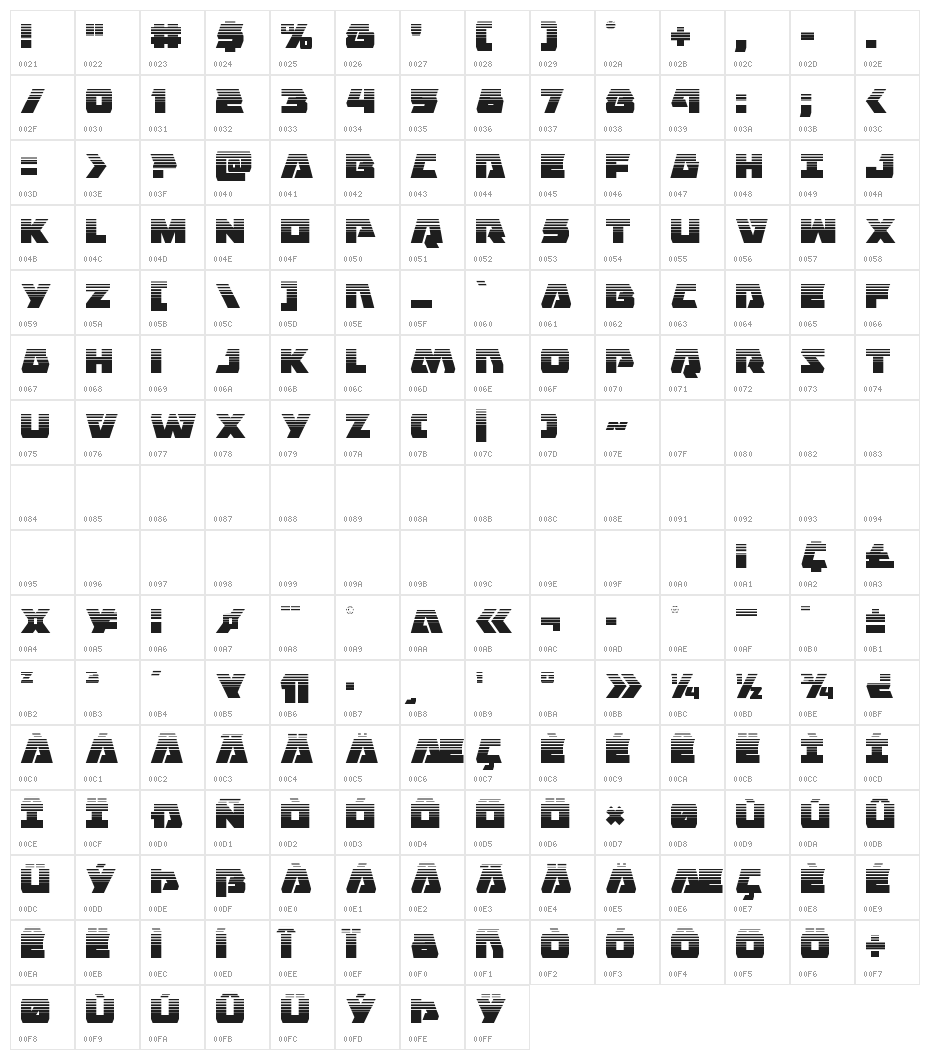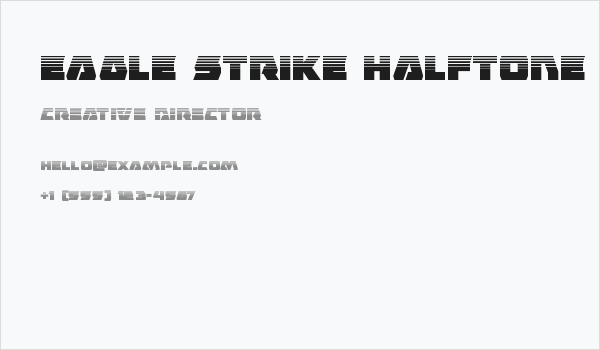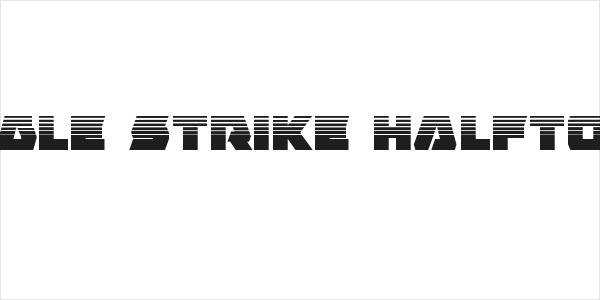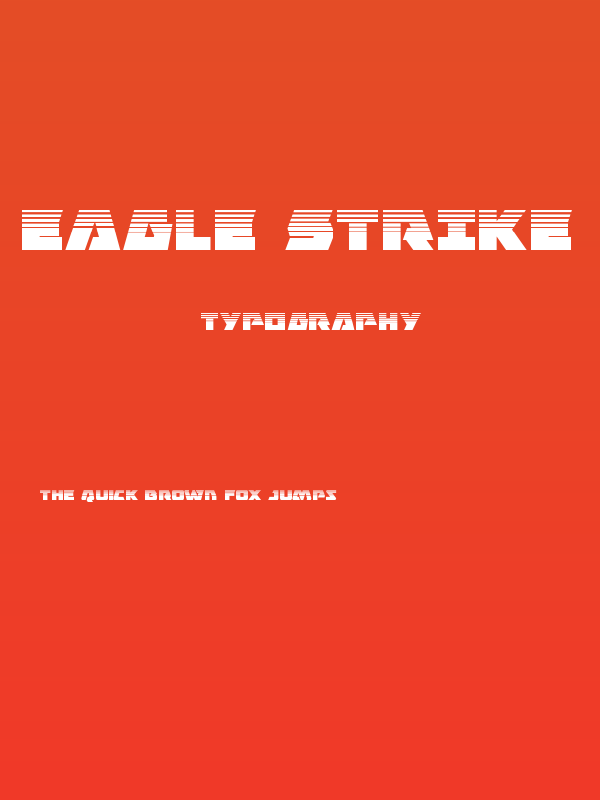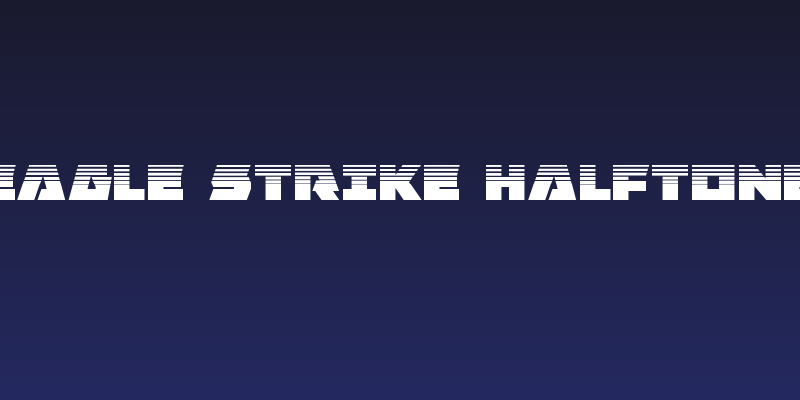
Eagle Strike Halftone Font
Eagle Strike Halftone Description
This font features a bold, geometric design with a striking halftone effect. The characters are constructed with thick, angular lines that create a sense of movement and energy. The halftone pattern adds a unique texture, giving the font a dynamic and modern appearance. Each letter is distinct, with sharp edges and a consistent width, making it highly legible despite its decorative style. The font's boldness and distinctive look make it suitable for attention-grabbing headlines and impactful designs.
| Proposed Projects | Perfect for posters, logos, video game graphics, and any project requiring a bold, modern aesthetic. |